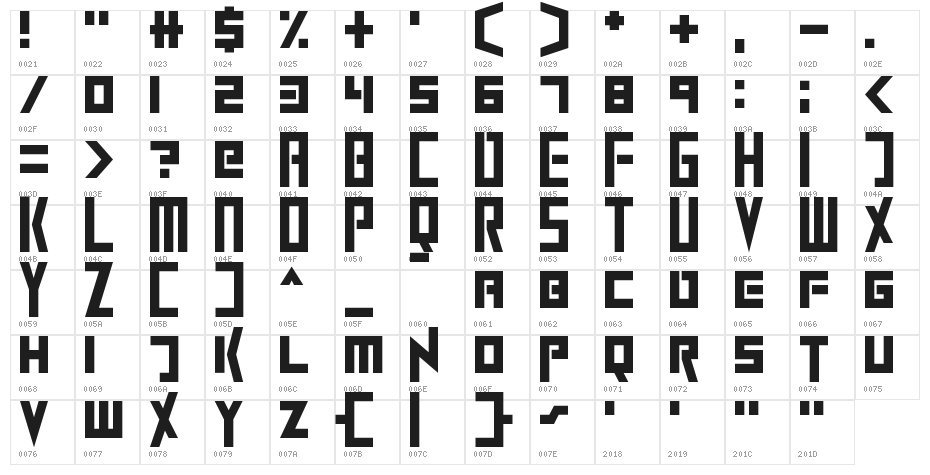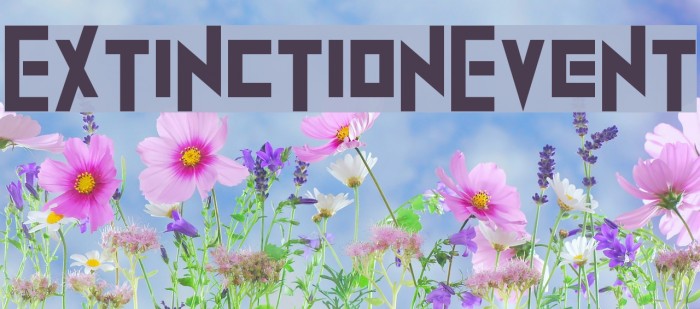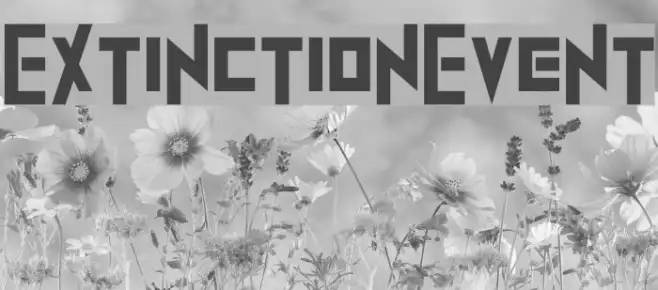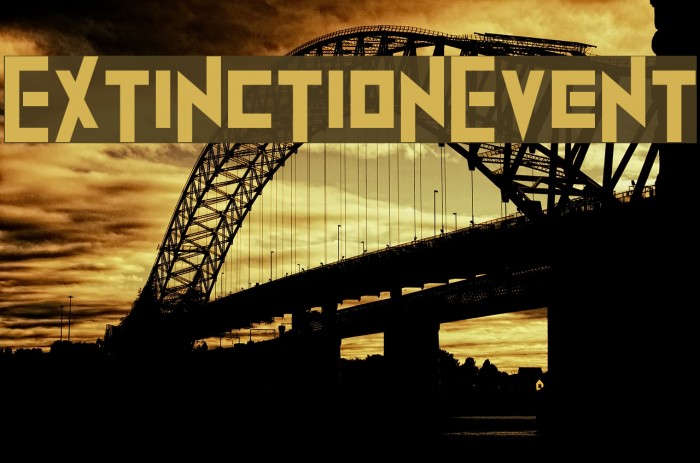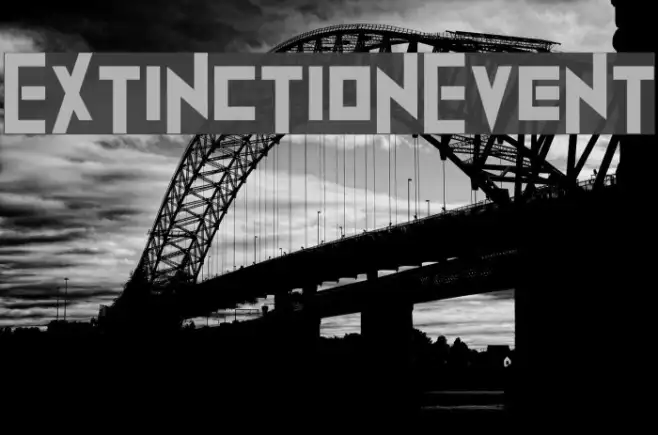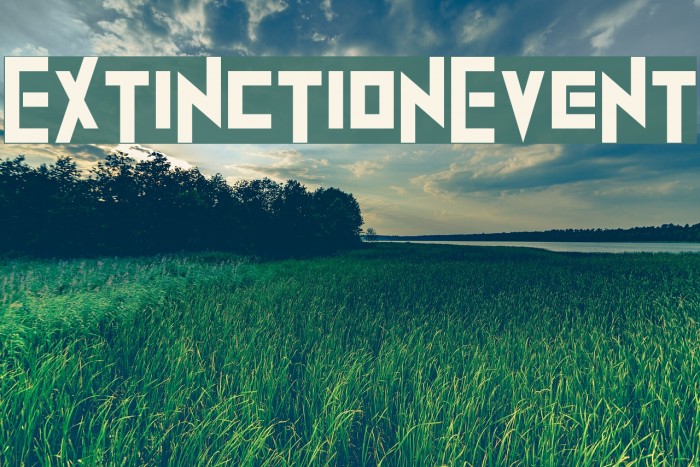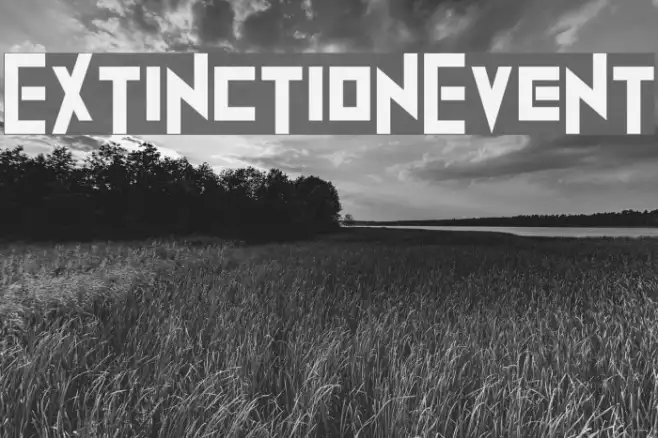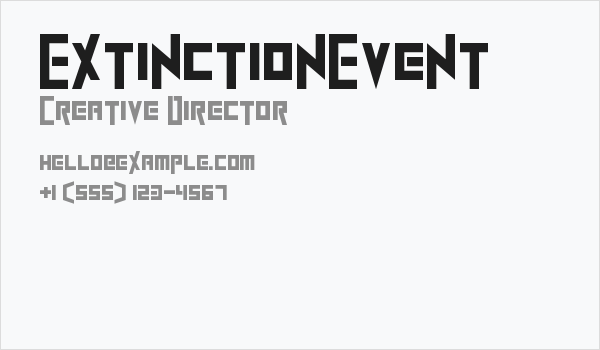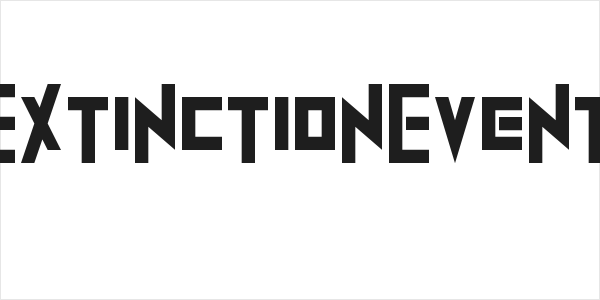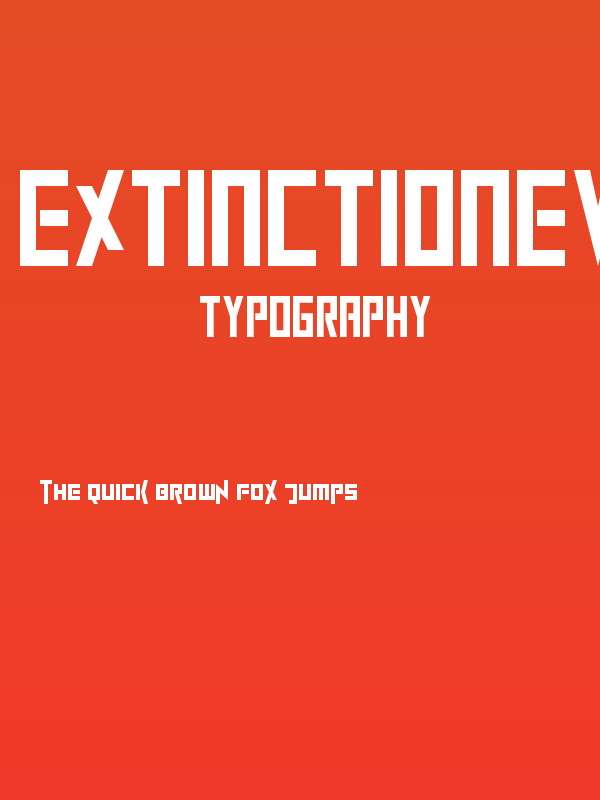
ExtinctionEvent Font
ExtinctionEvent Description
This font features a bold, geometric design with a futuristic and industrial feel. The characters are constructed with sharp angles and straight lines, giving them a mechanical and robust appearance. The uppercase and lowercase letters maintain a consistent height, contributing to a uniform and blocky aesthetic. The numerals and special characters follow the same design principles, ensuring cohesion across all glyphs. The font's style is reminiscent of digital or sci-fi themes, making it suitable for projects that require a modern and edgy look.
| Proposed Projects | Ideal for use in video game titles, tech branding, sci-fi movie posters, and digital interfaces. |